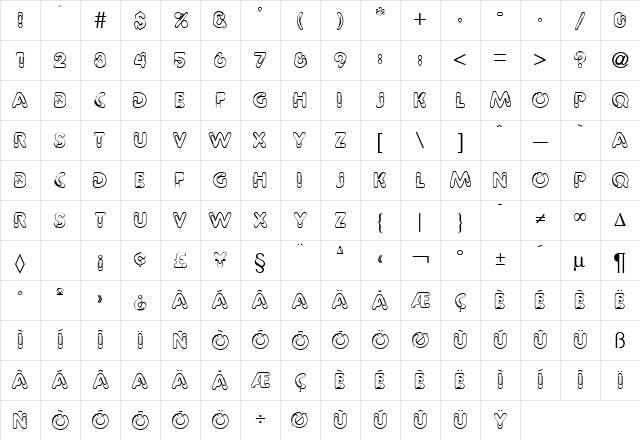
Paperbin Regular
Complete Paperbin Regular glyph index. Displaying only characters natively supported by Paperbin Regular font.
Design Context for Paperbin
Paperbin is a composed and adaptable typeface that performs quietly and consistently across a wide range of design contexts.